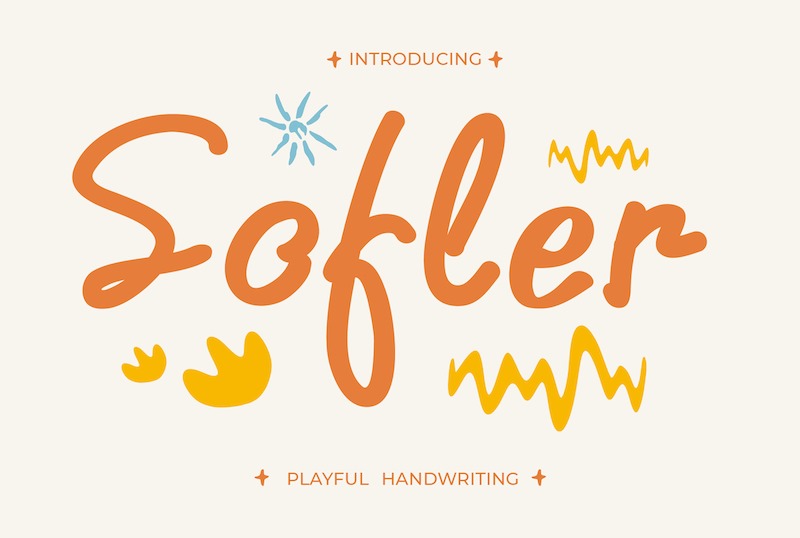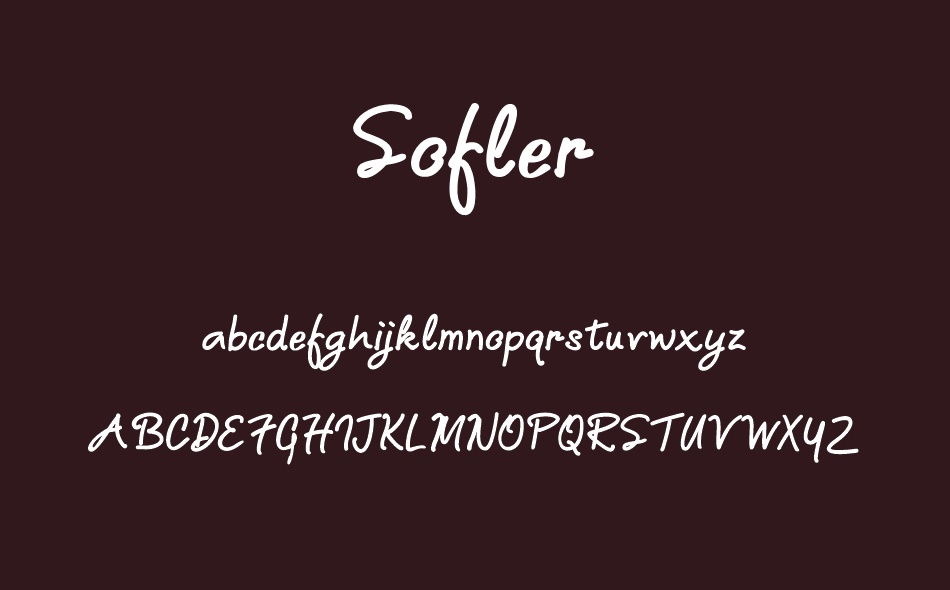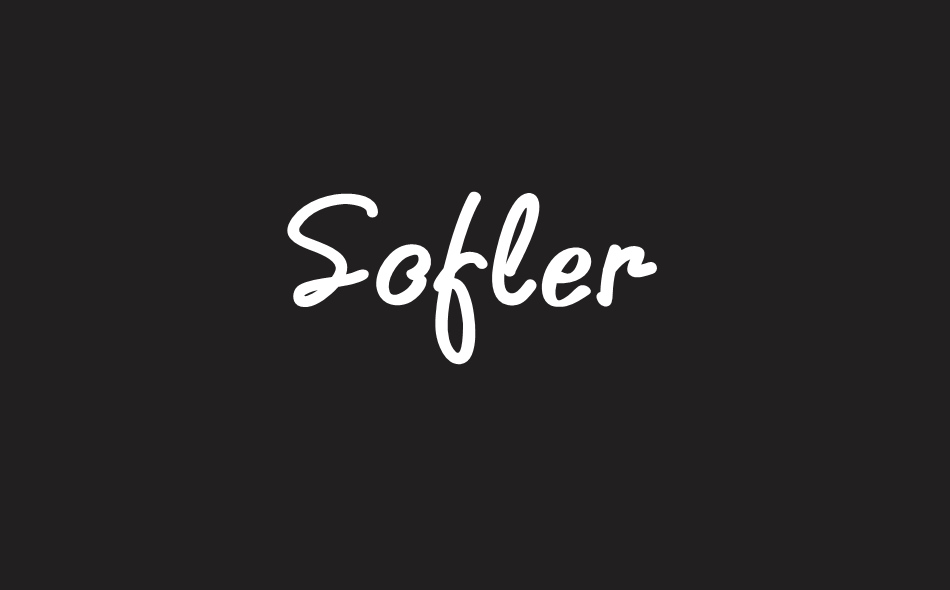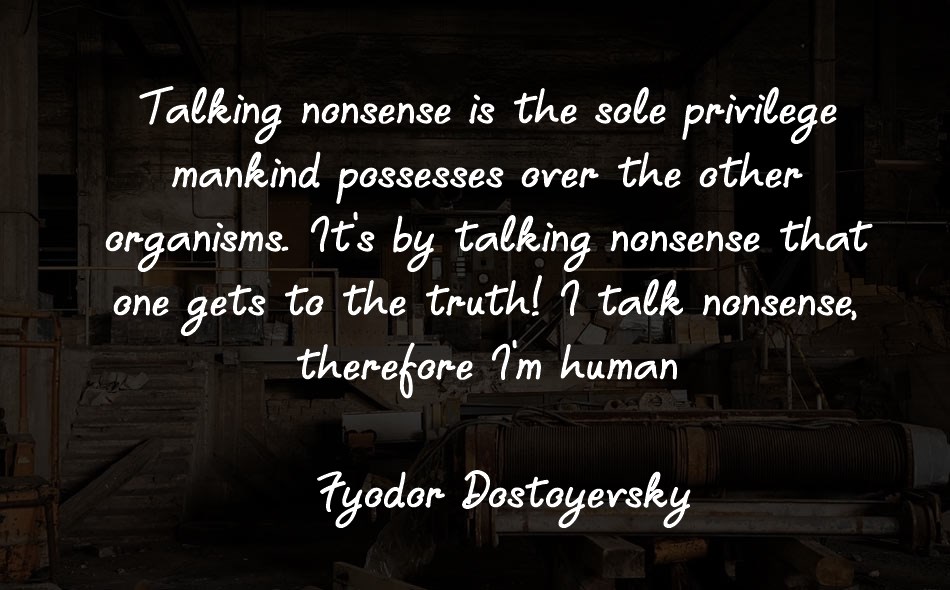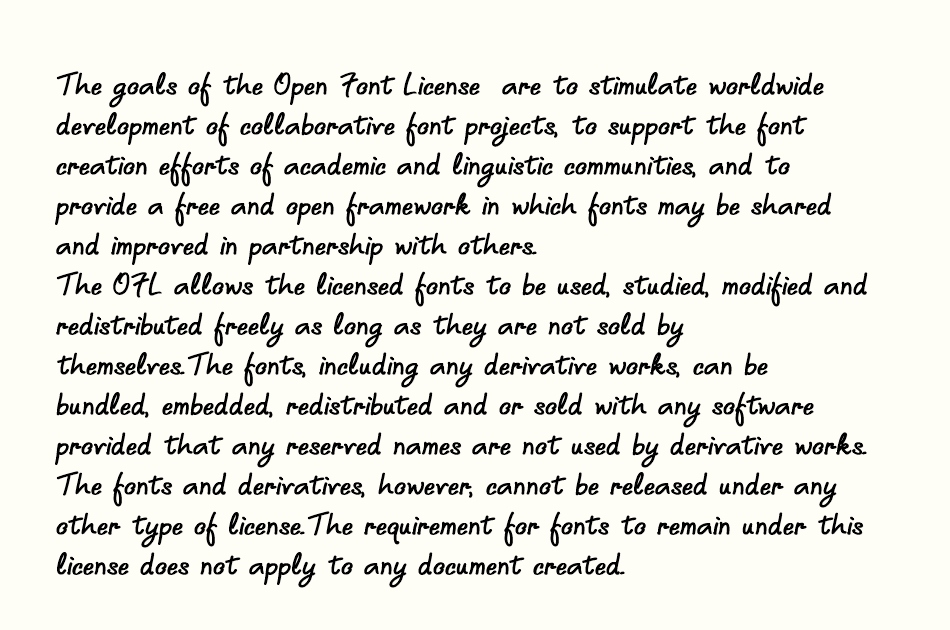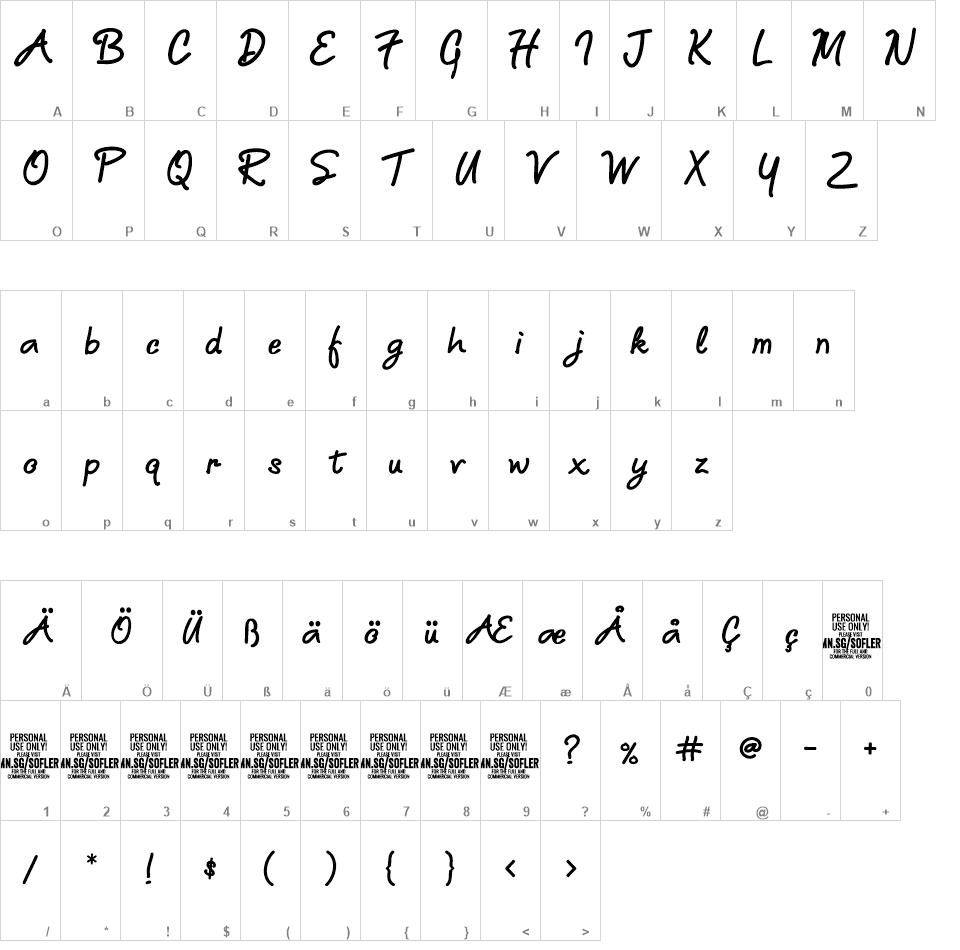
Sofler font
Sofler is a bold and quirky handwriting font that adds a touch of personality, making it perfect for projects that require a touch of fun quirkiness.
Sofler is a bold and quirky handwriting font that adds a touch of personality and individuality to your designs. Its unique and eye-catching style sets it apart from more traditional handwriting fonts, making it perfect for projects that require a touch of fun and quirkiness. This font is ideal for teenage or hipster-themed designs, or for any project that wants to capture a fun and lighthearted vibe. Whether you're creating social media posts, product packaging, or marketing materials, Sofler is the perfect font to help you stand out and make a lasting impression.
The Sofler family consists of four high-quality fonts:
Regular, Italic, Bold and Bold Italic
The font is built with advanced OpenType functionality and has a guaranteed top-notch quality, containing stylistic and contextual alternates, ligatures and more features; all to give you full control and customizability.
It has extensive lingual support, covering all Latin-based languages, from Northern Europe to South Africa, from America to South-East Asia.
It contains all characters and symbols you'll ever need, including all punctuation and numbers.